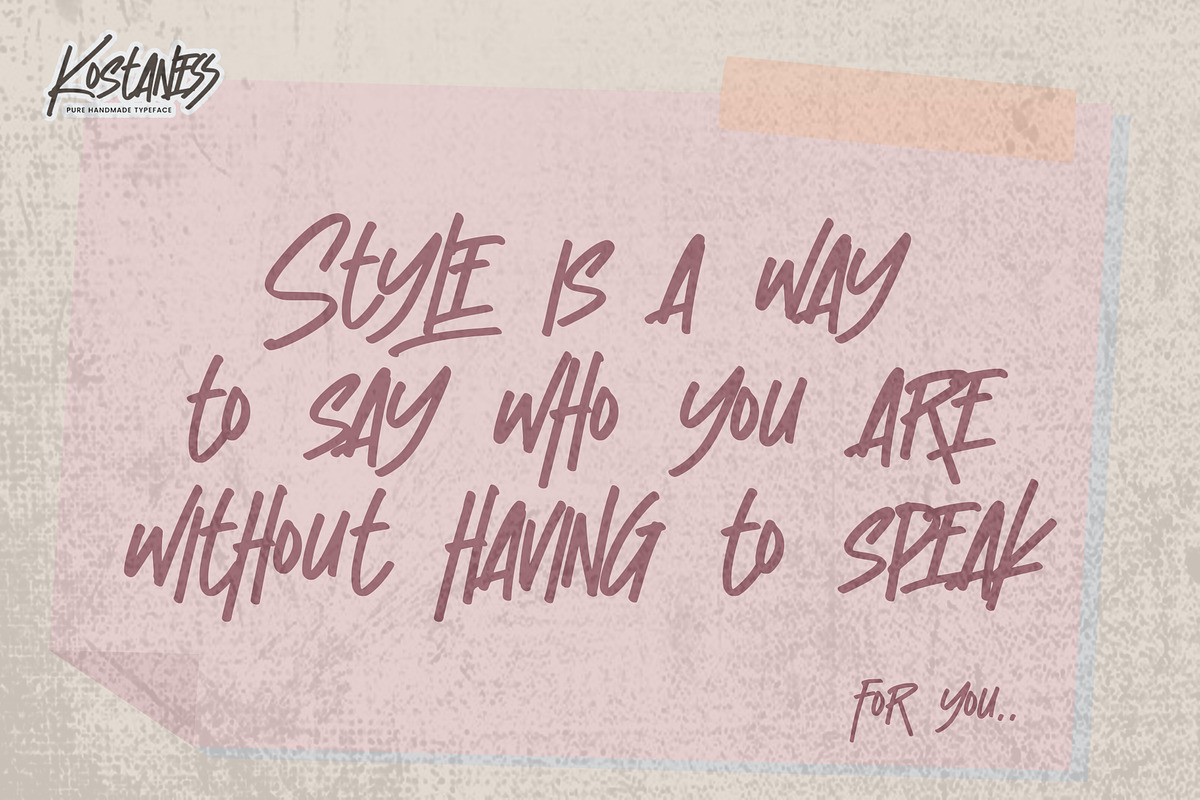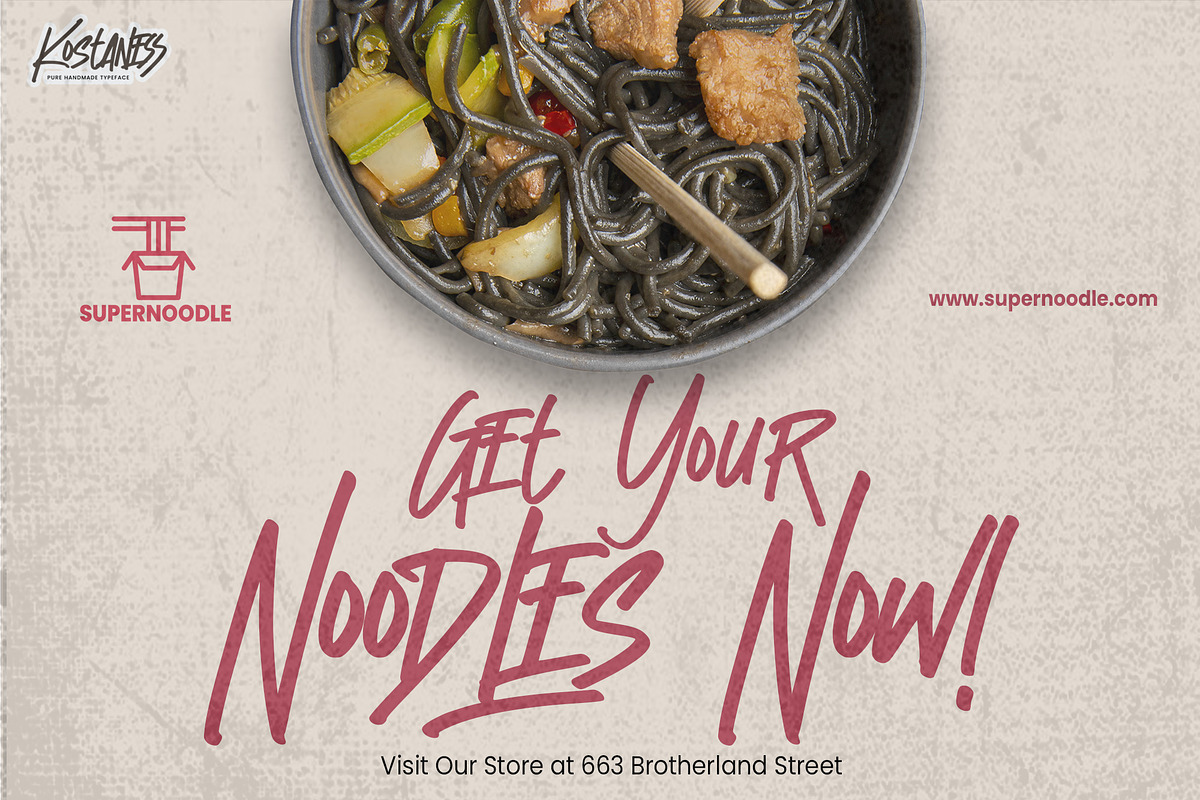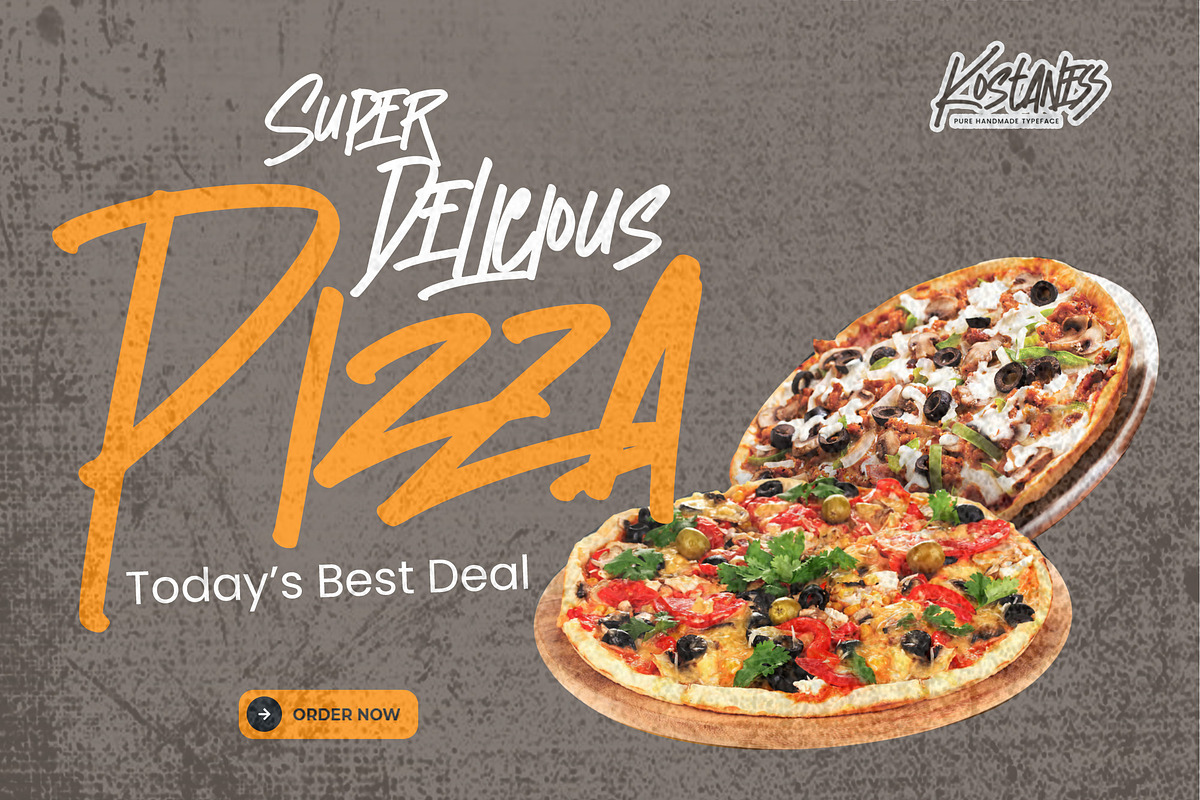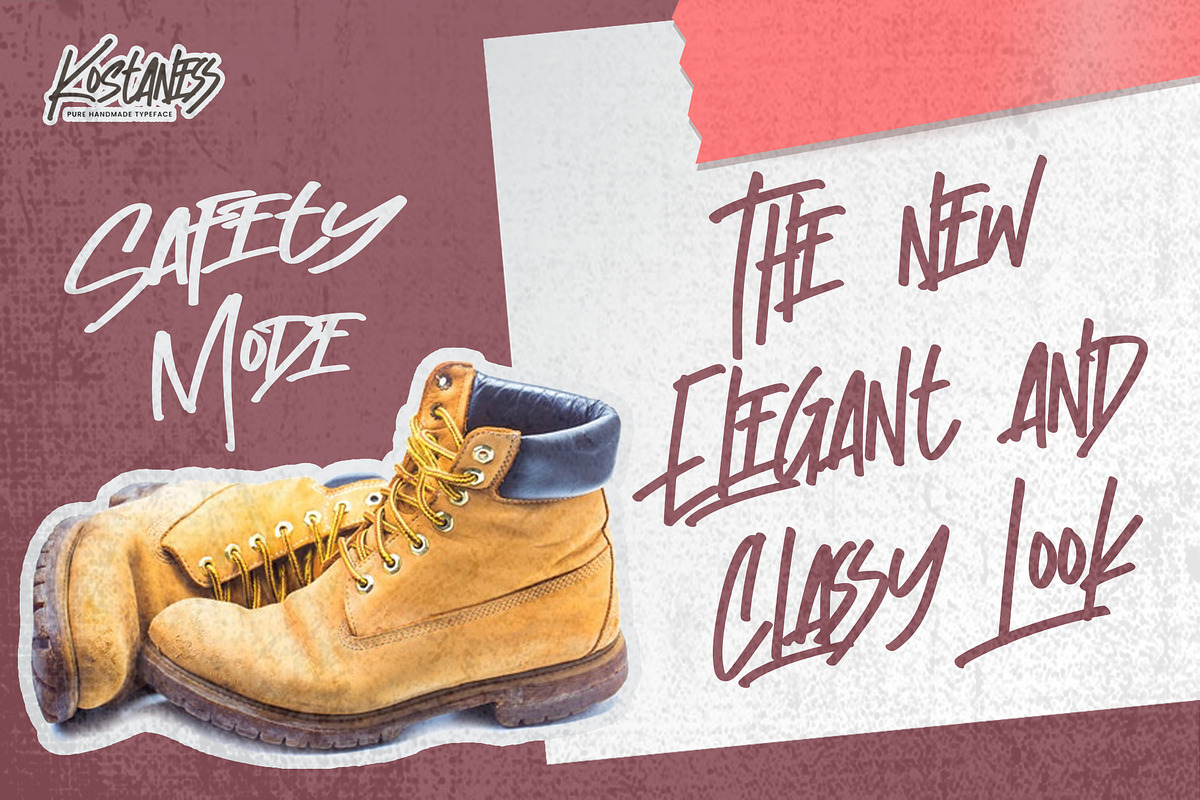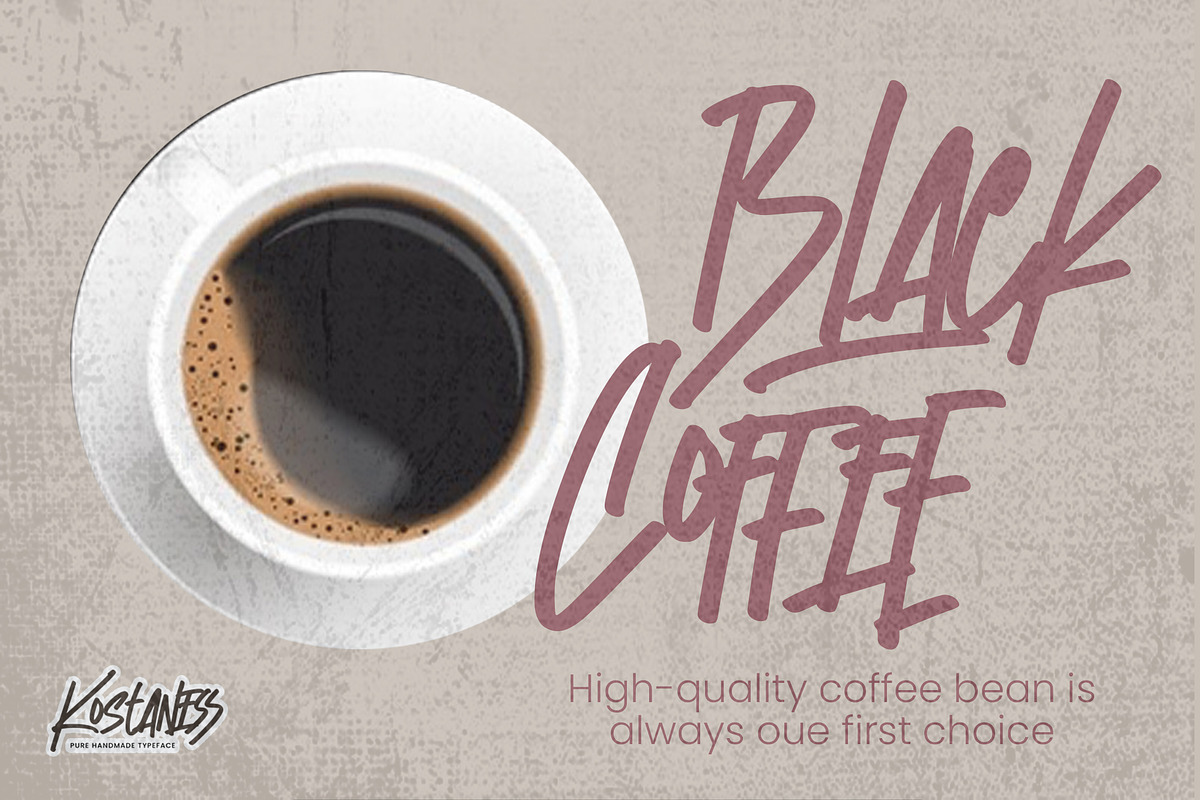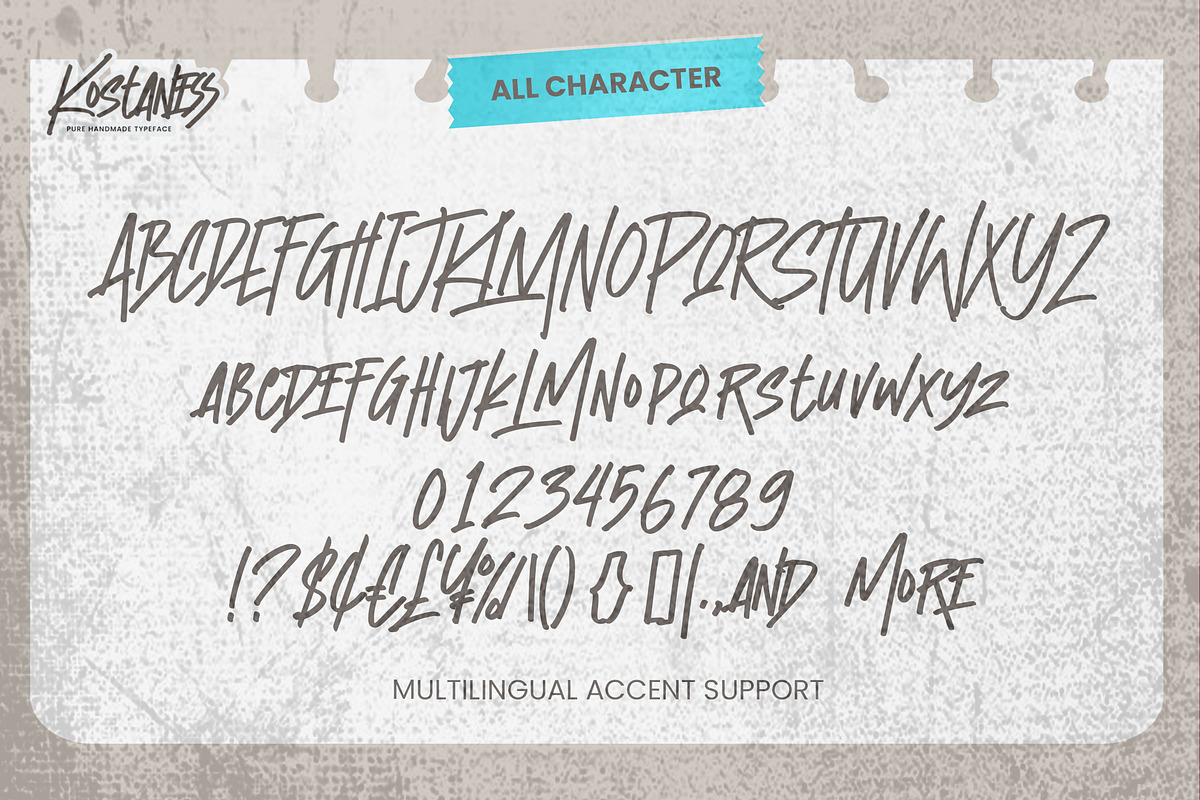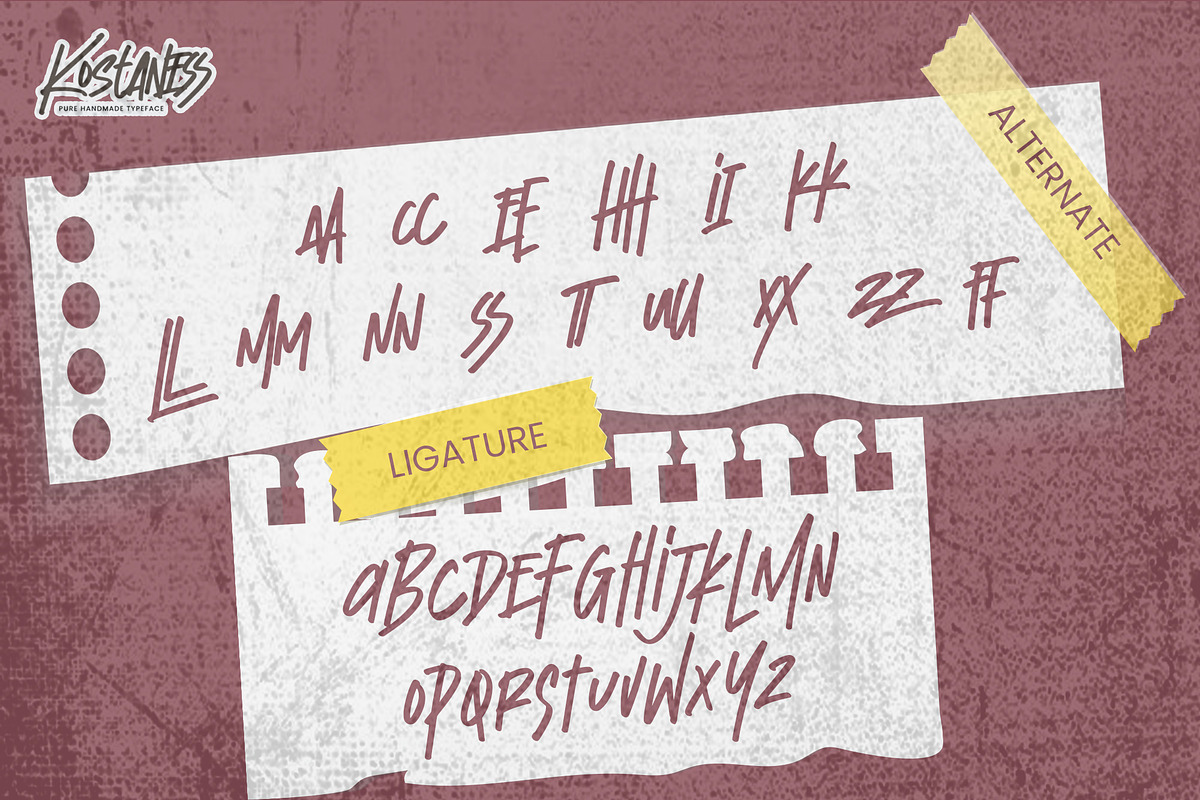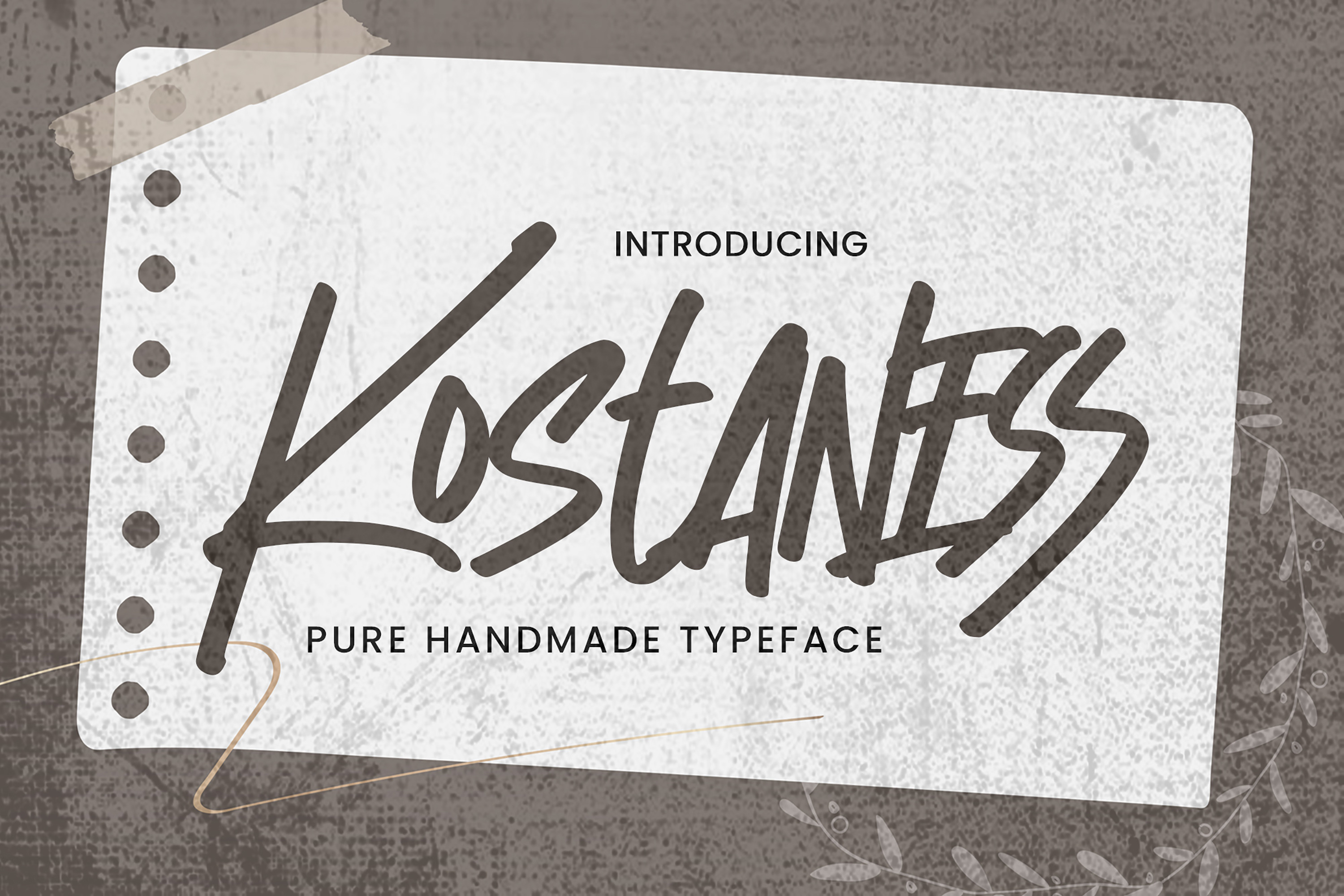
Kostaness - Pure Handmade Typeface
Kostaness is Pure Handmade Typeface with a natural handwritten feel Authentic Style and classy style, this font is great for your creative projects such as watermark on photography, and perfect for logos & branding, photography, invitation, watermark,advertisements,product designs, stationery, wedding designs,label ,product packaging, special events or anything that need handwritting taste. This handmade font will make your design has a beautiful natural touch for each details. It is perfect for any design project as Invitation,logo, book cover, craft or any design purposes. This font is PUA encoded which means you can access all of glyphs with ease!
- OpenType Ligatures